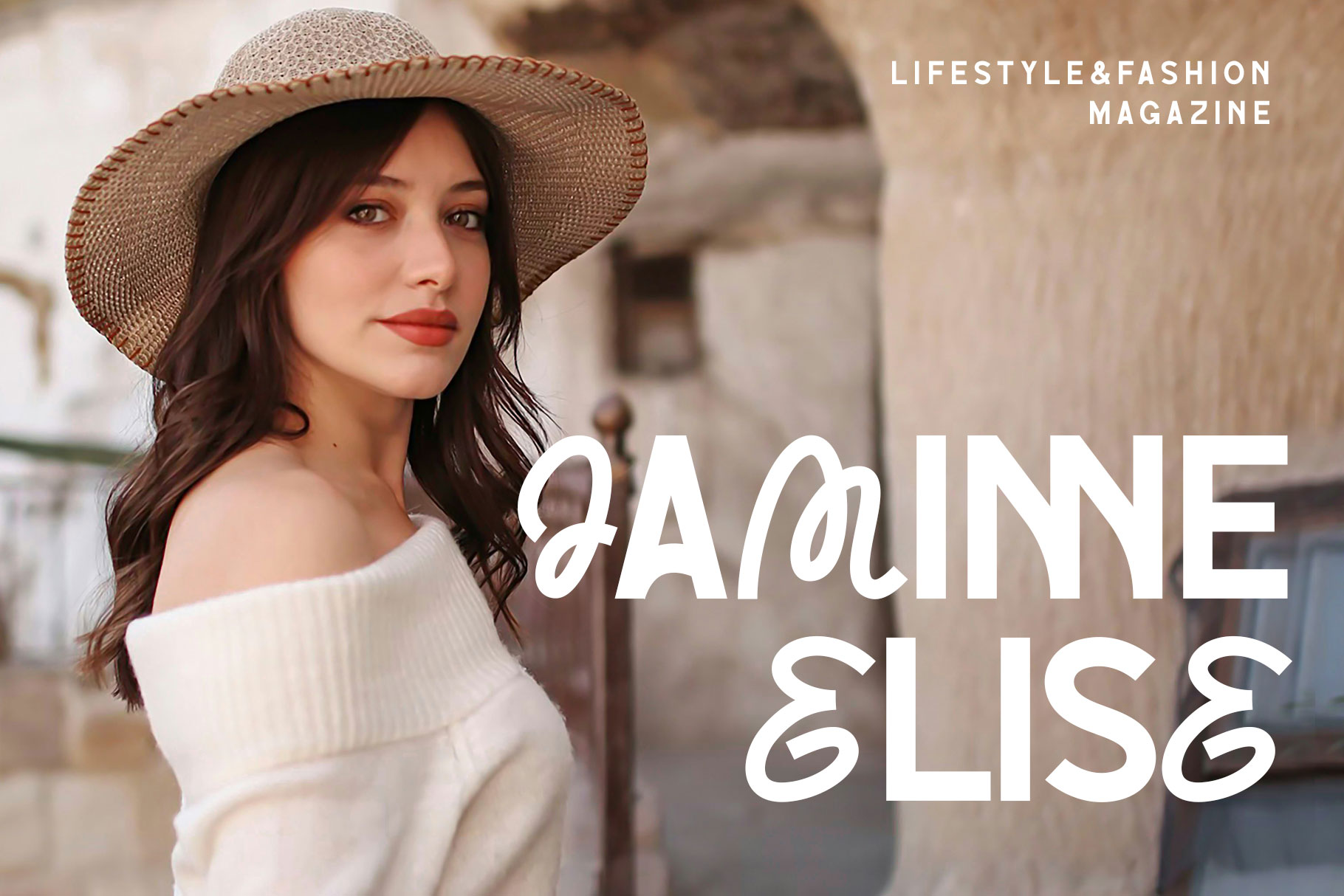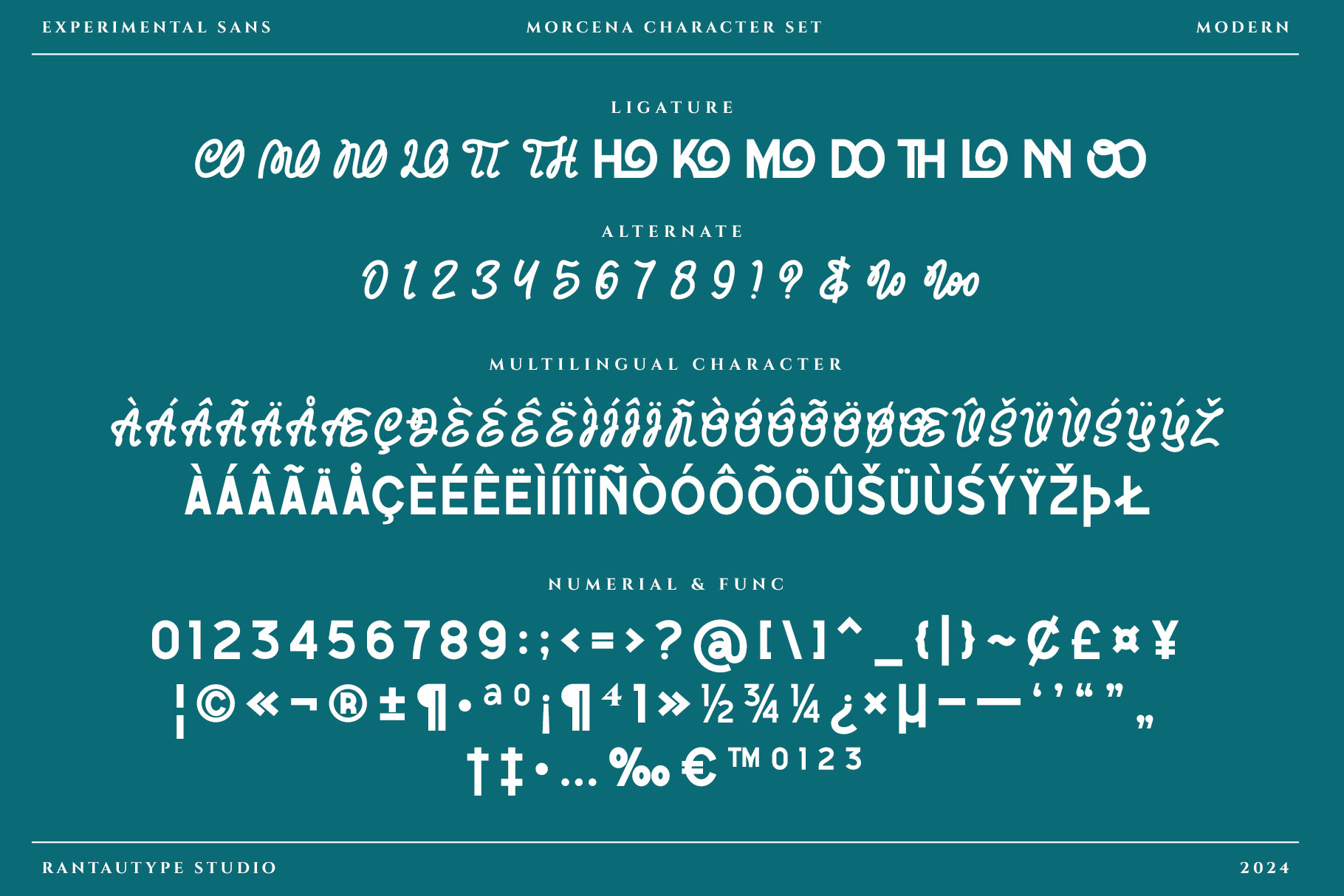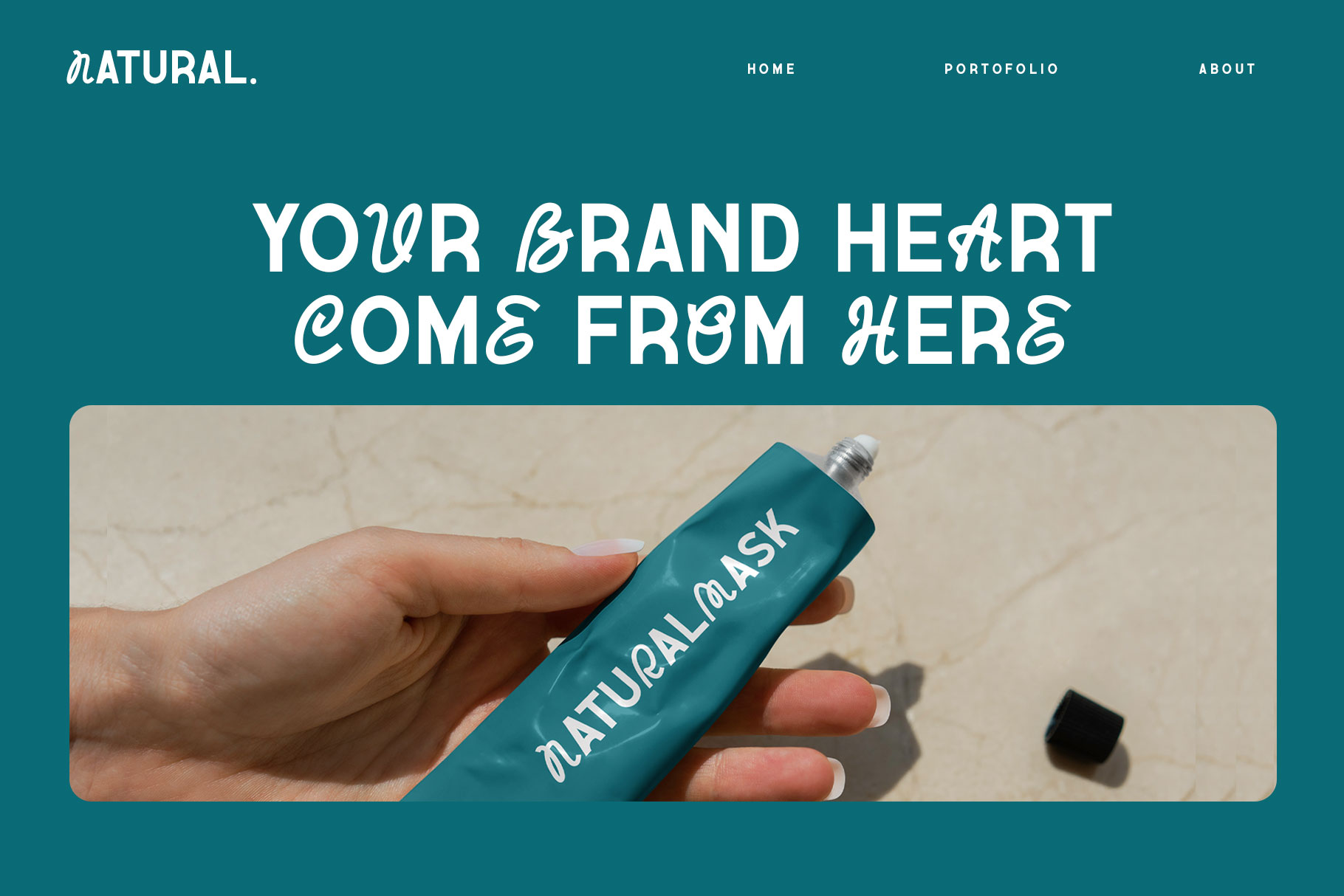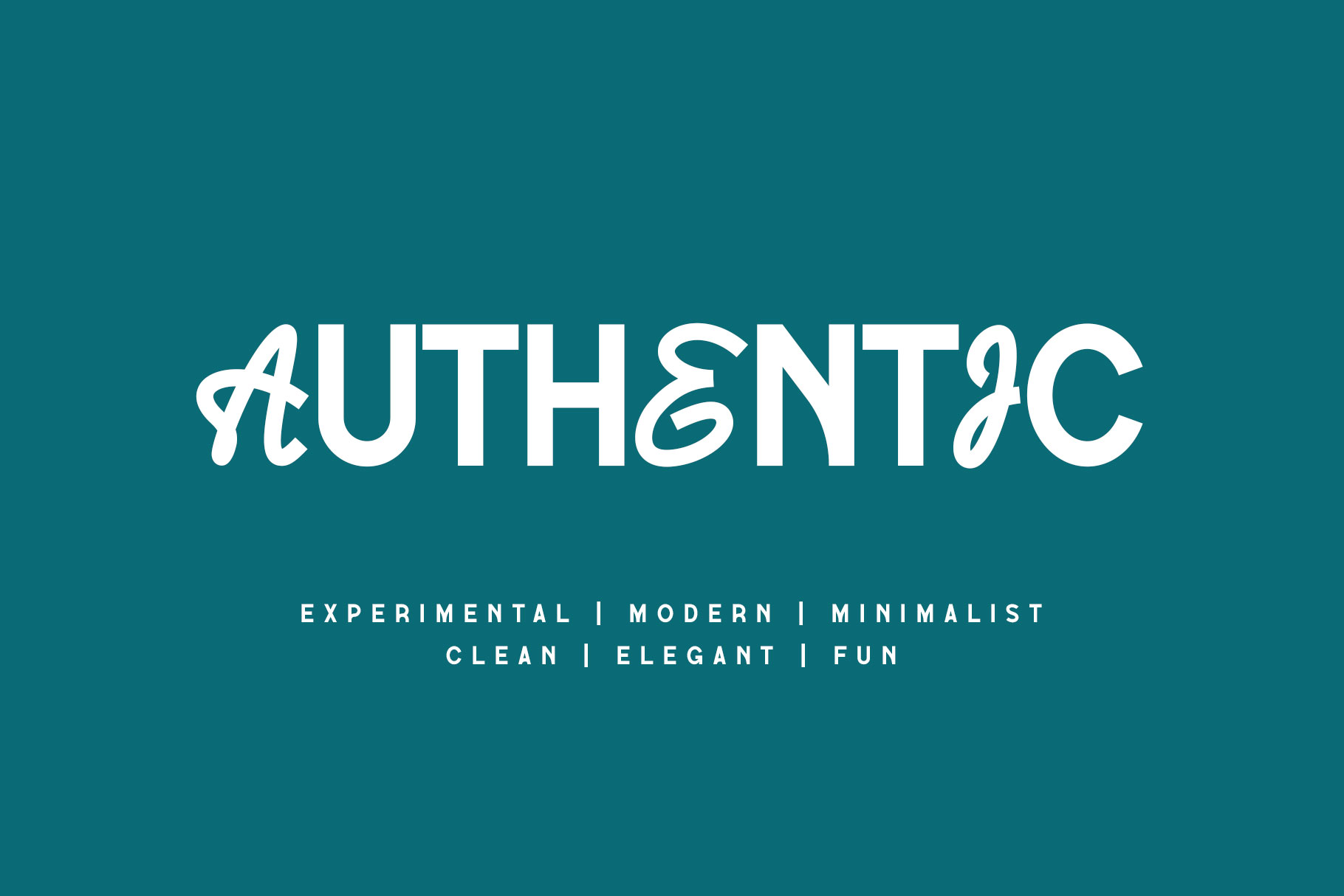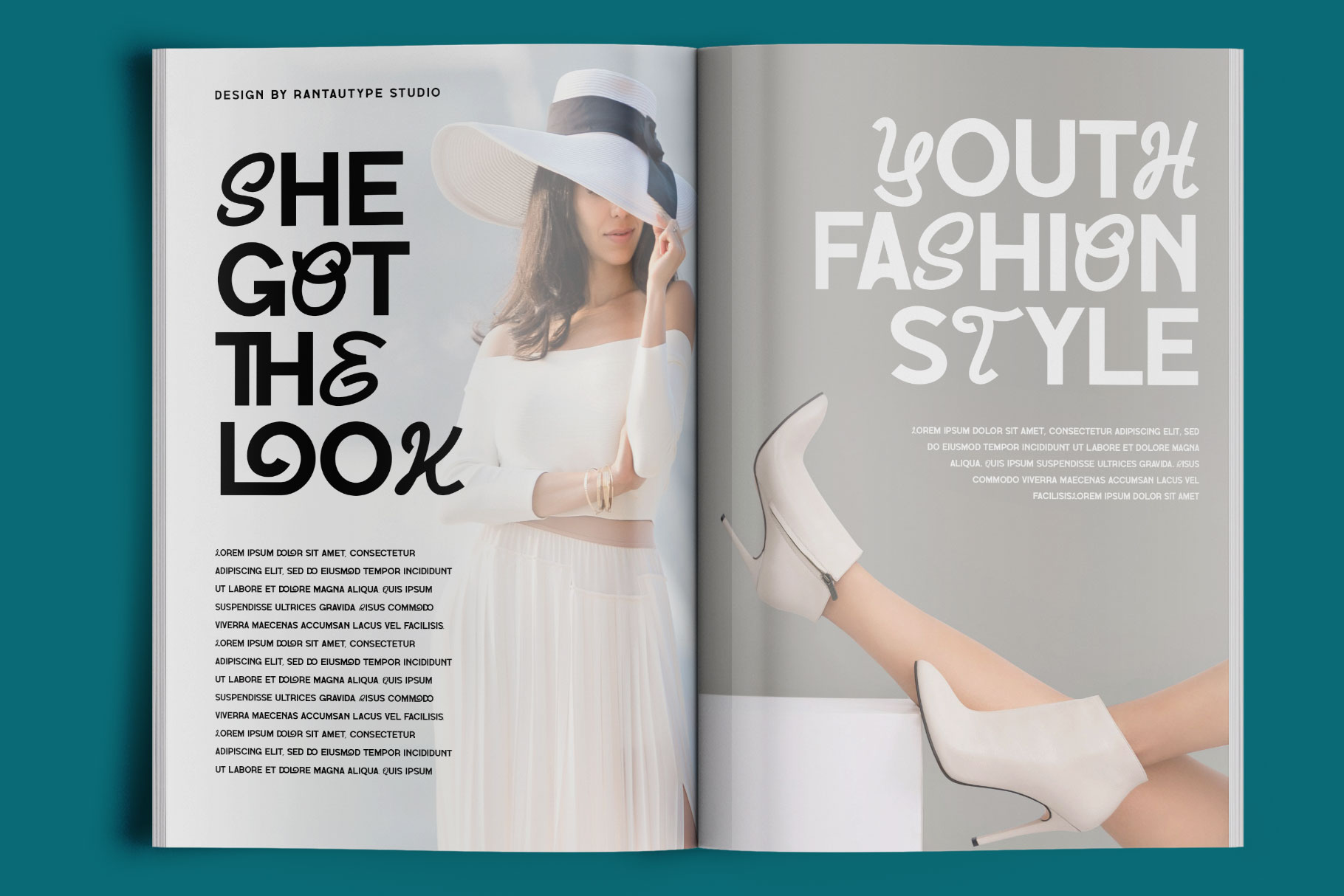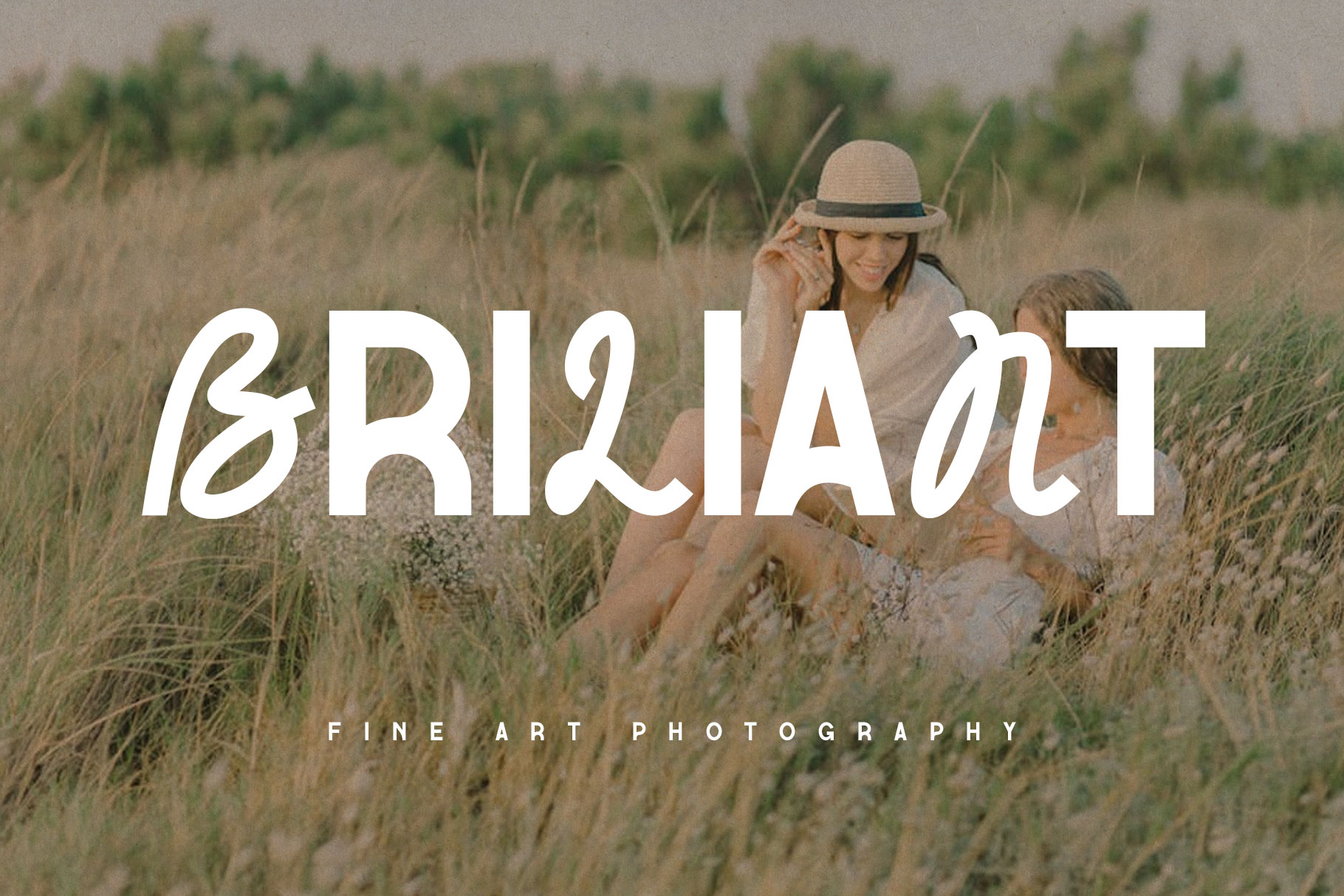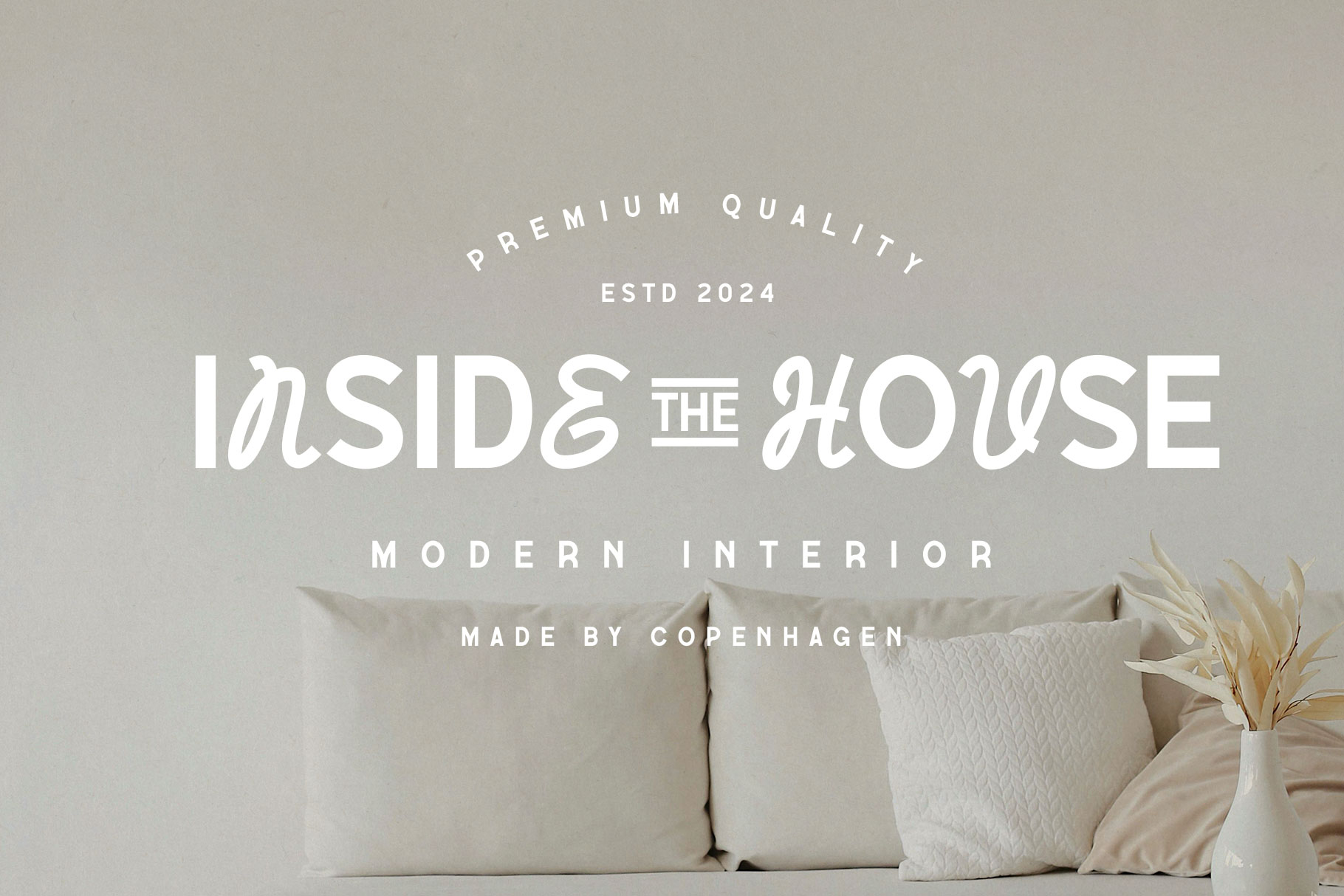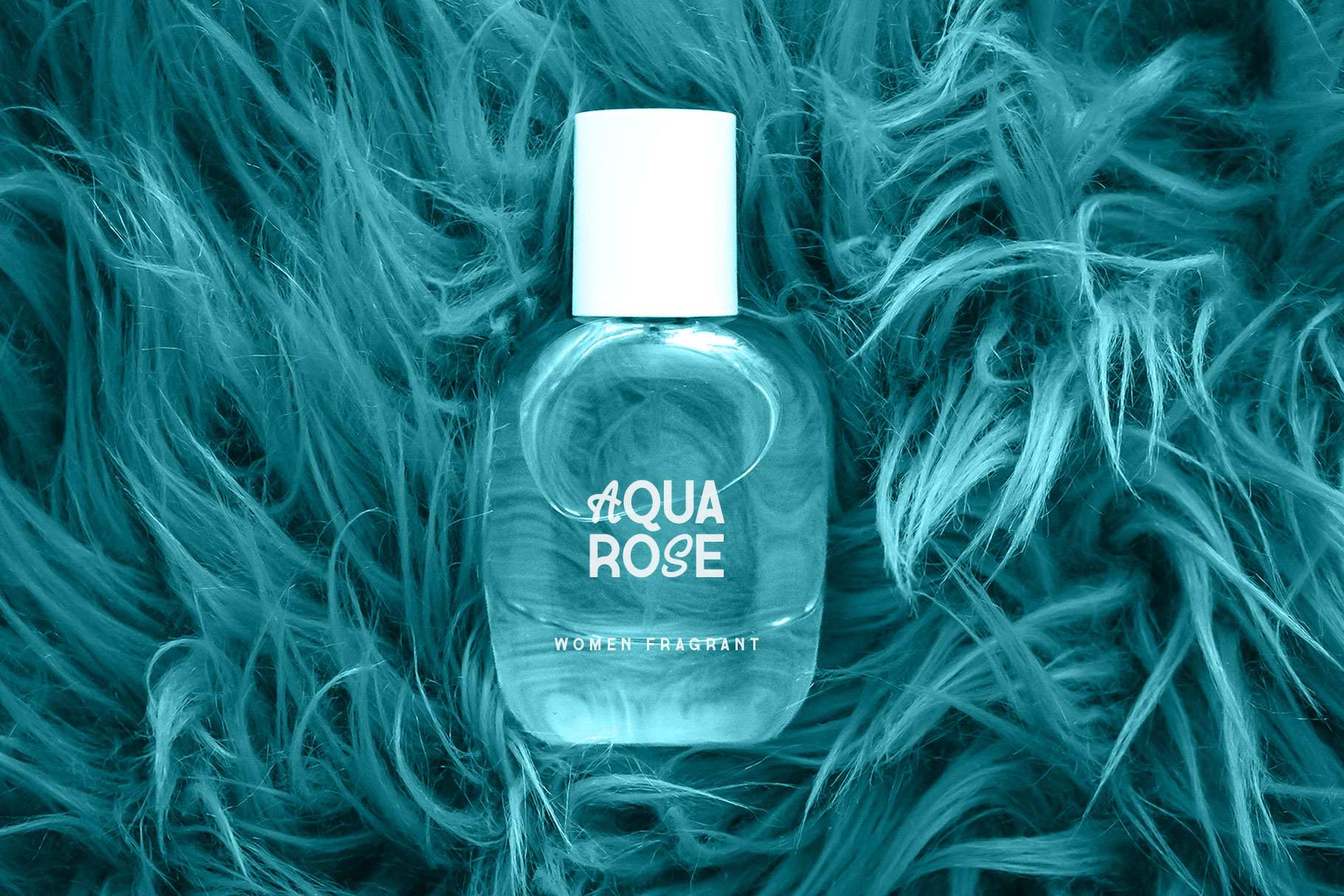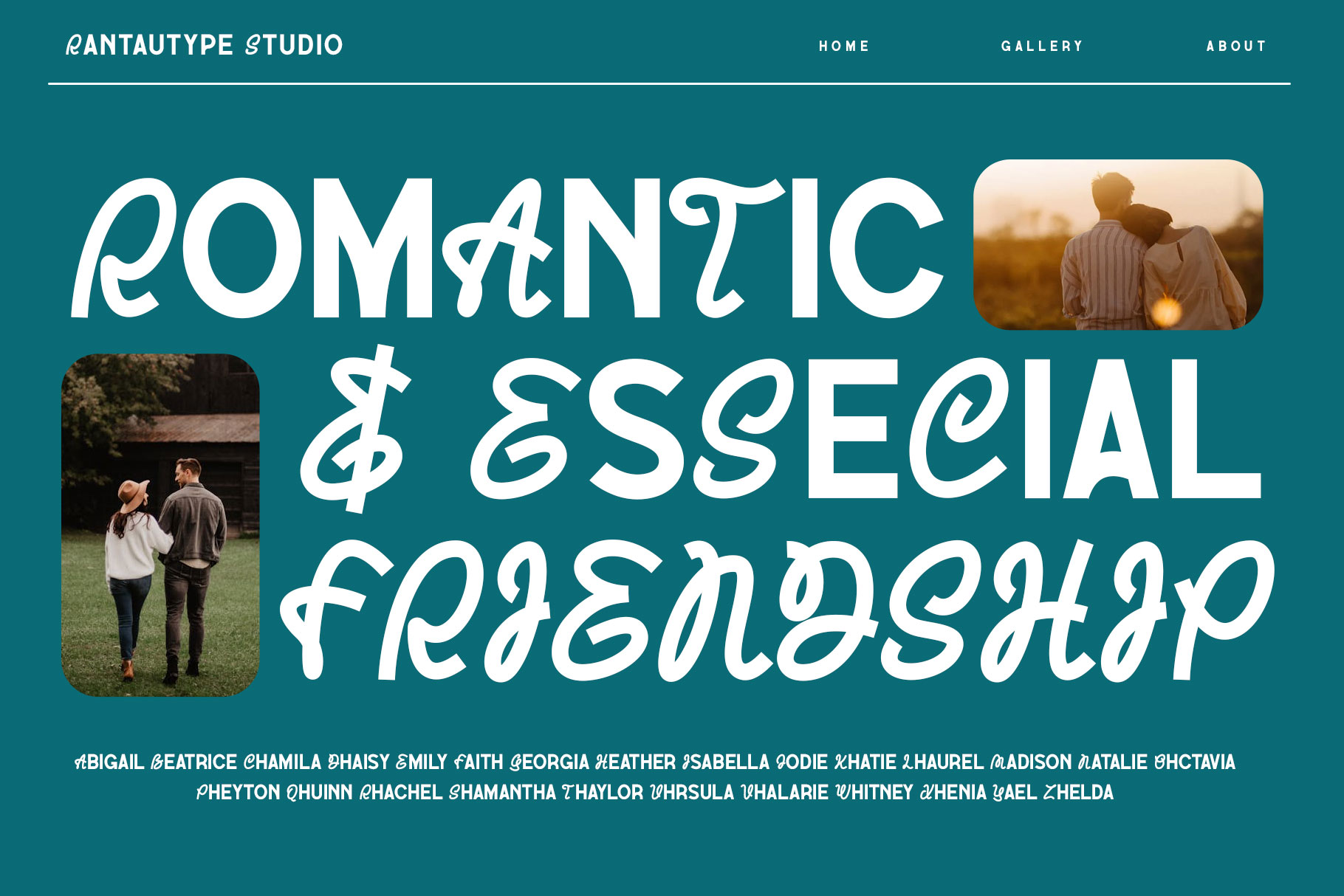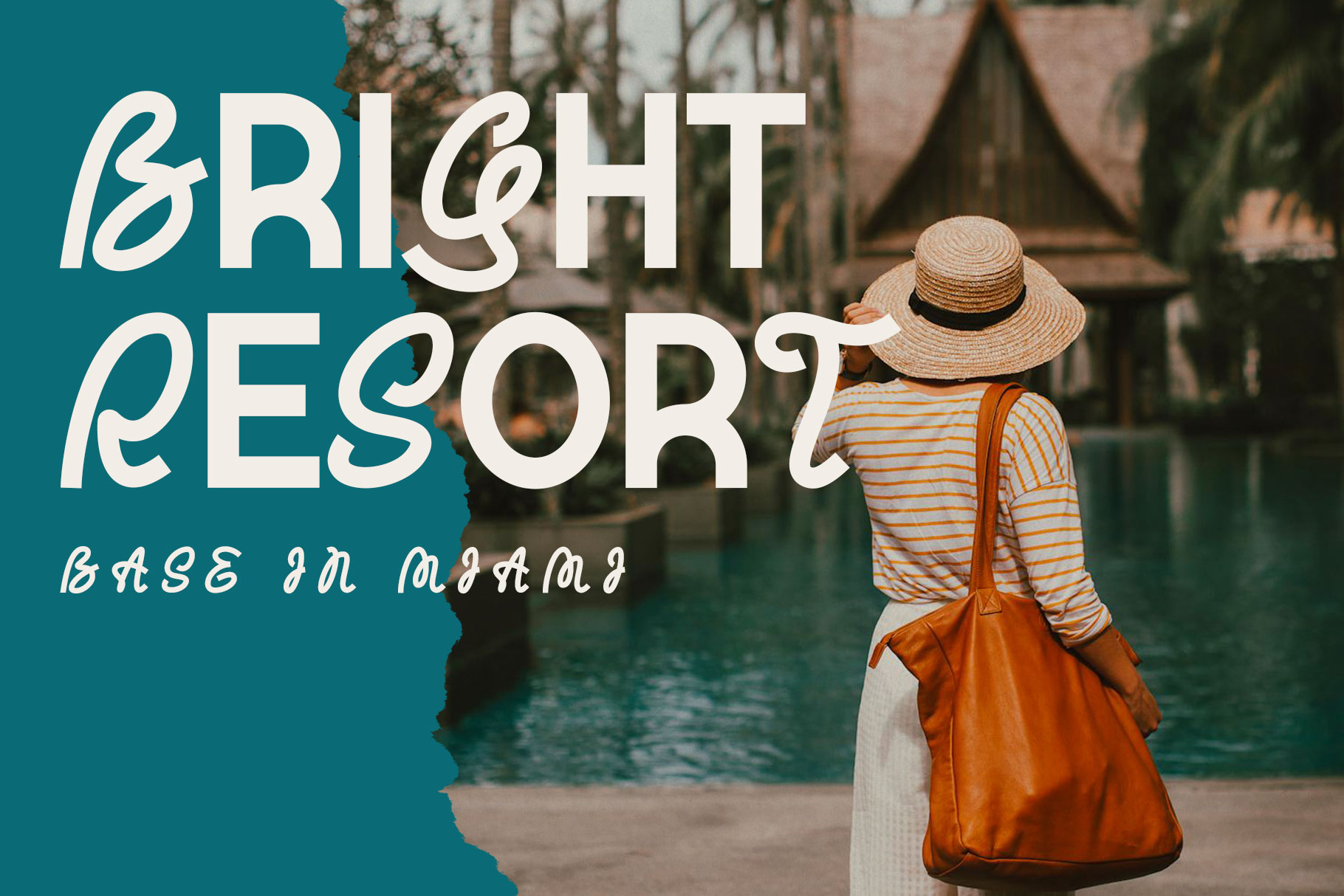
Morcena Experimental Sans Font
Morcena is a experimental unique font with stylish curve and fun geometry inspire. Morcena bring geometry to fun flowles and memoriable shape. Morcena come to help you make a stunning brand and creative design project. We keep this font look modern, fun, cusual, elegant, clean and easy to use.